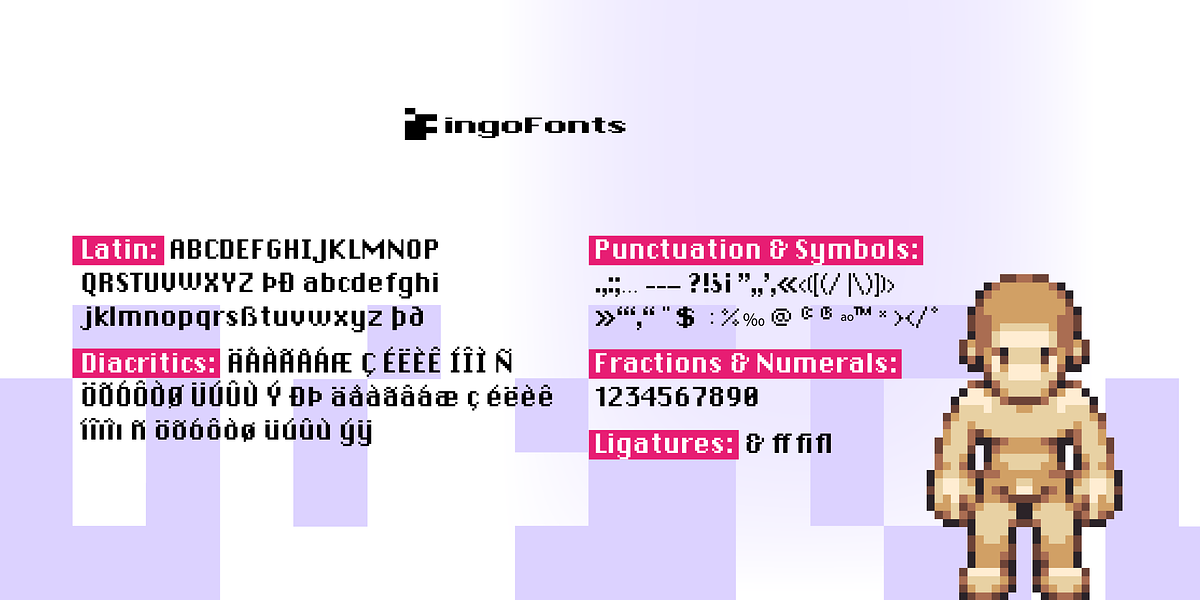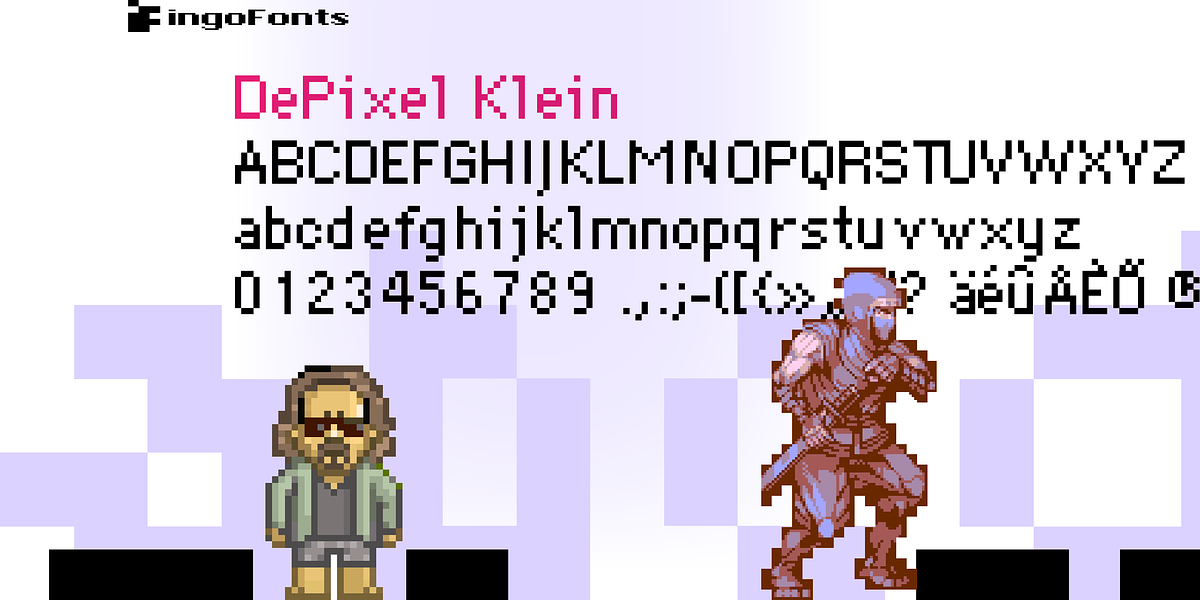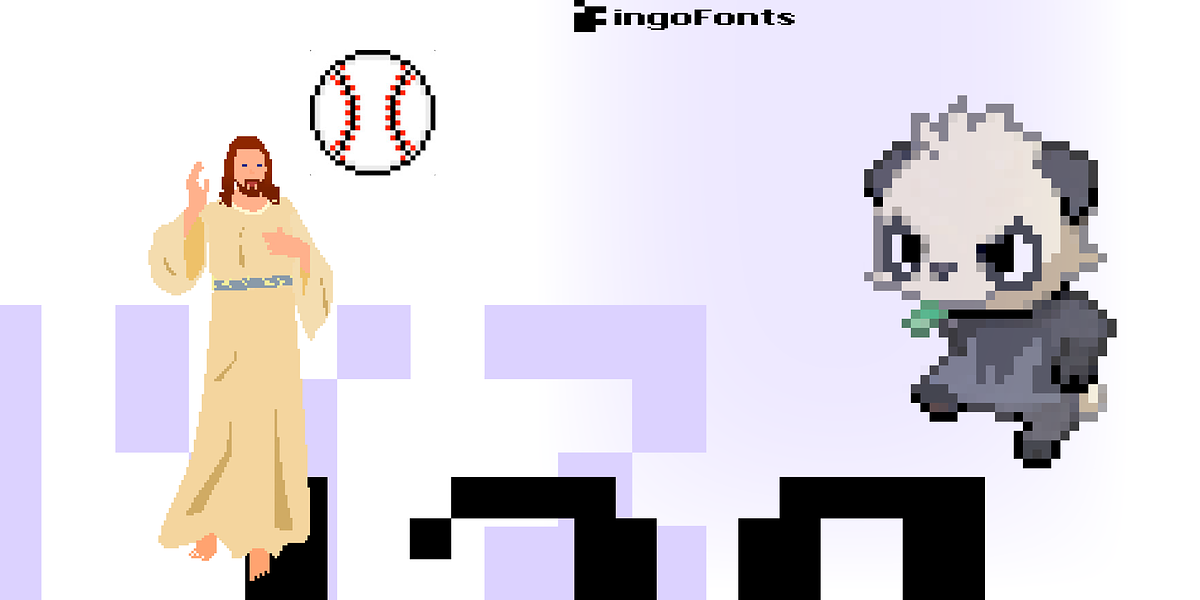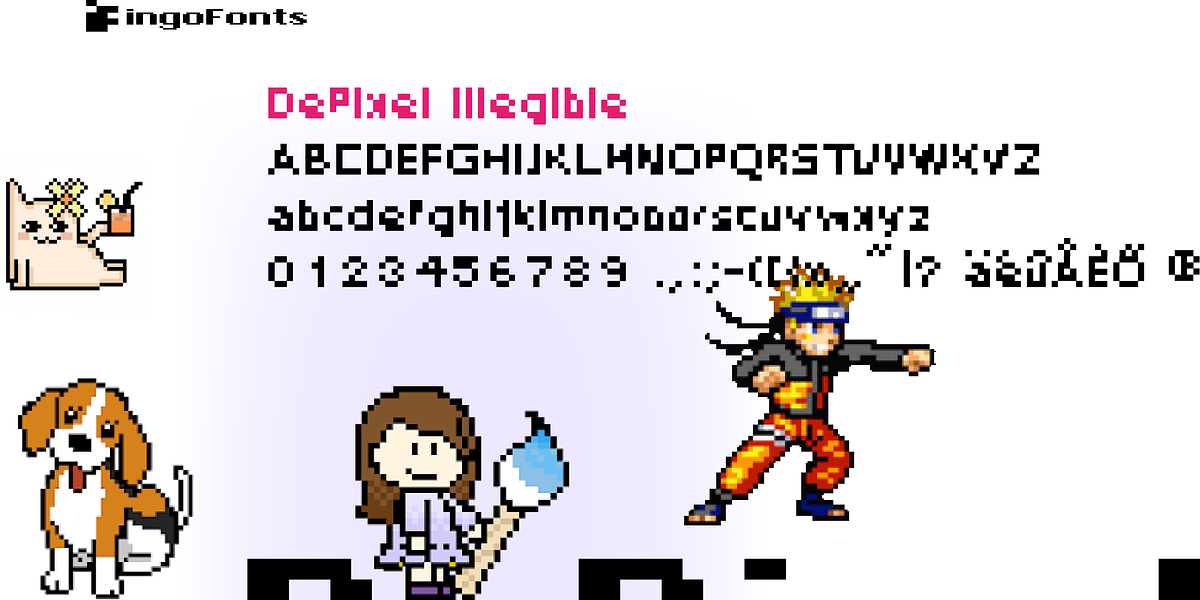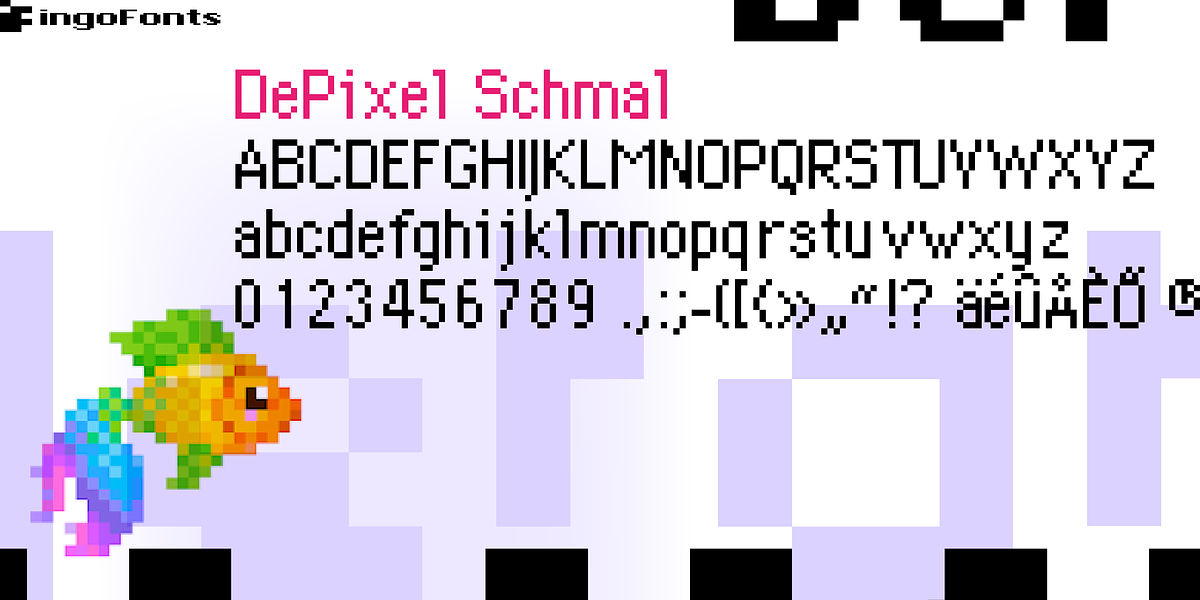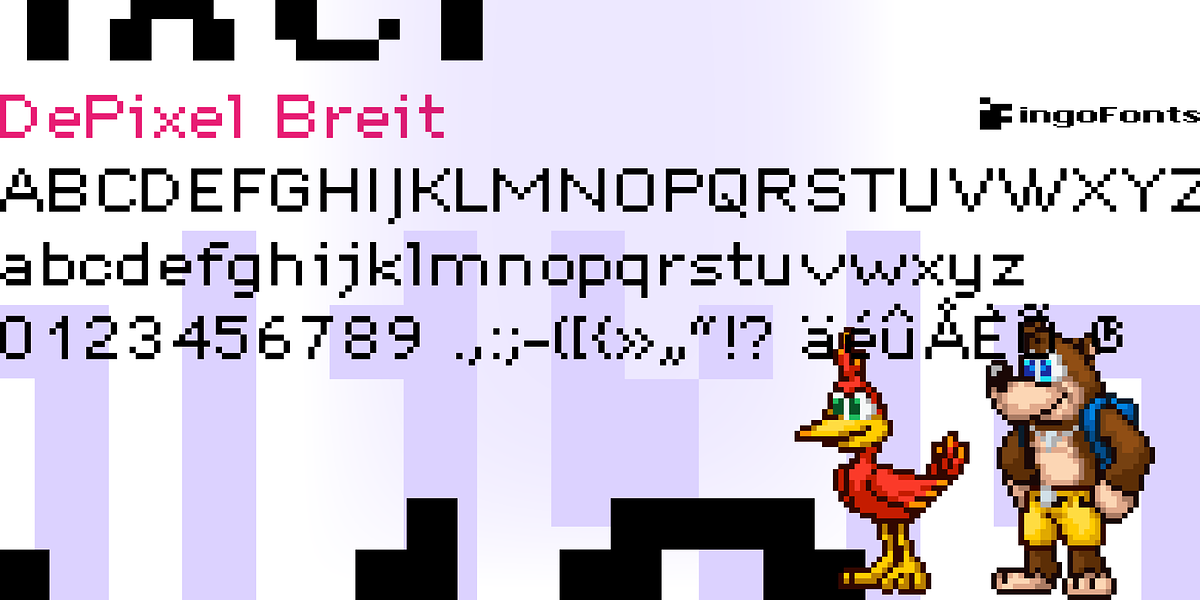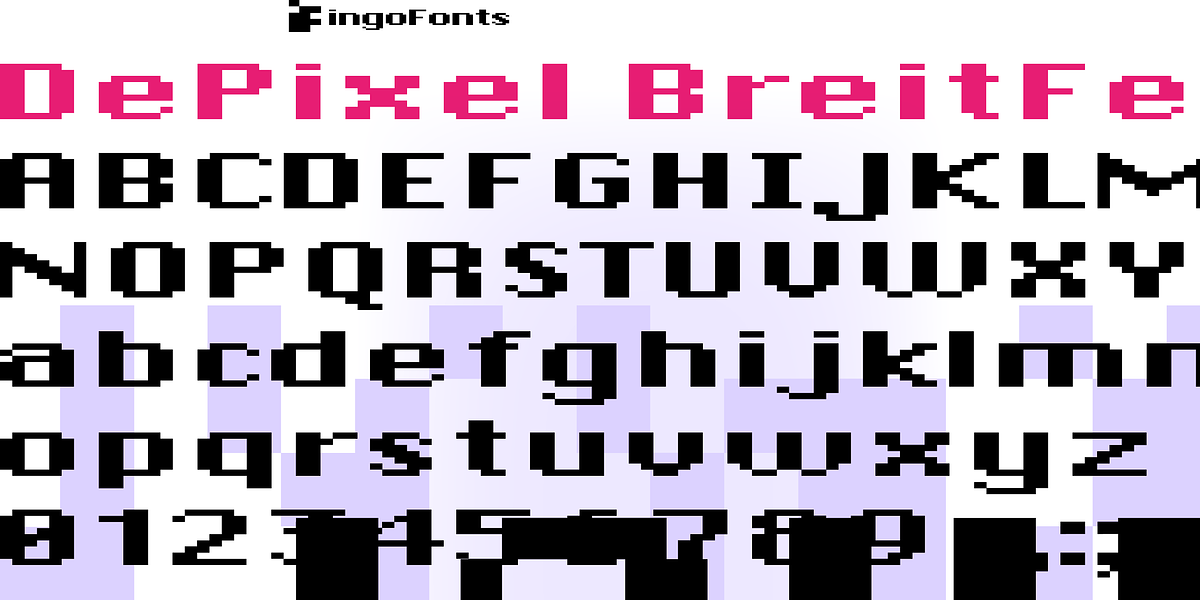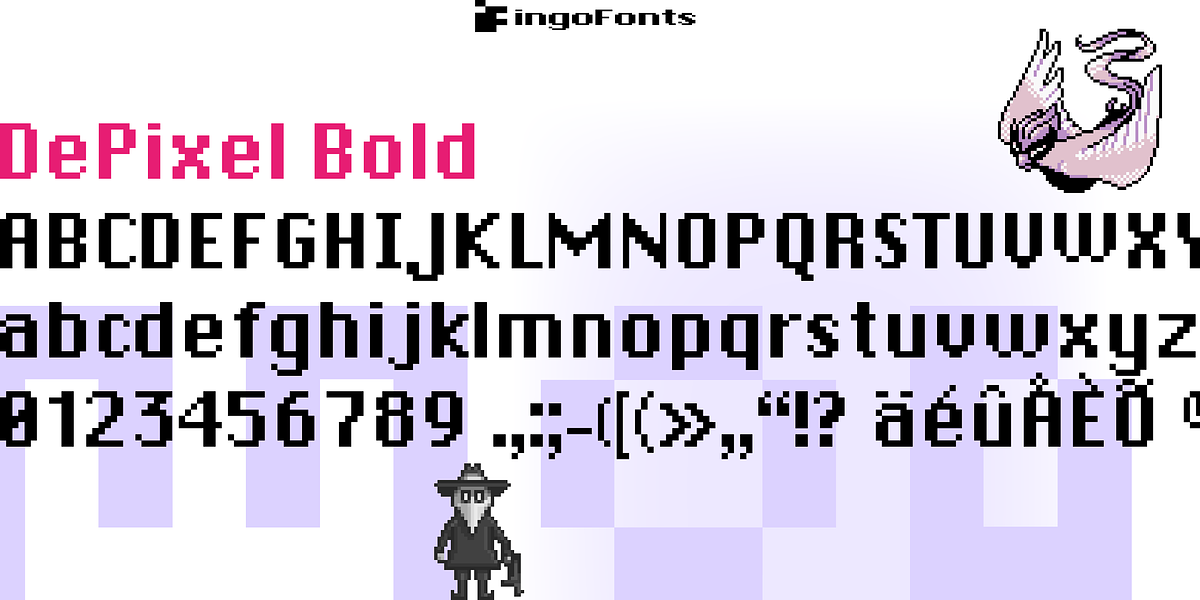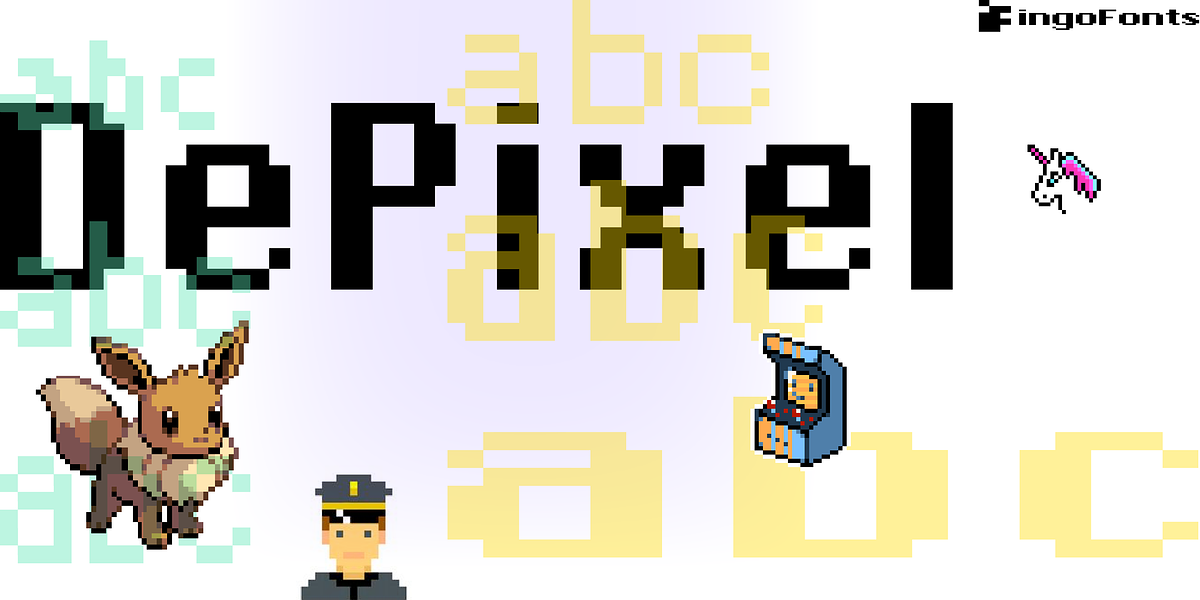
DePixel
DePixel is a pixel font designed to mimic the appearance of system fonts like Geneva and Chicago when displayed at low resolutions. It achieves this by representing letters as distinct arrangements of pixels, resulting in a distinctly retro aesthetic.